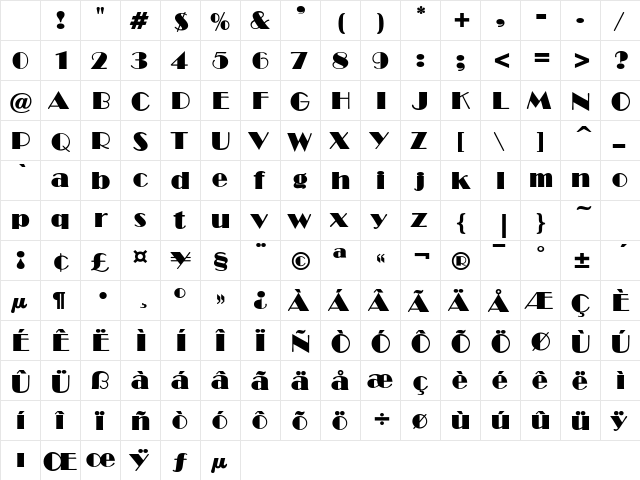
Complete NewYorkDeco Heavy glyph index. Displaying only characters natively supported by NewYorkDeco Heavy font.
NewYorkDeco is a composed and adaptable typeface that performs quietly and consistently across a wide range of design contexts.